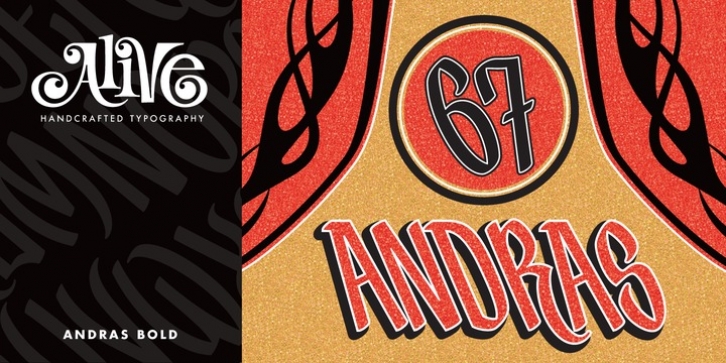
Inspired from fragments peeled from the helmet of retired stunt-man Andras Balaset, font designer Allen Mercer of Alive fonts has created an alphabet ready to give you the best performance in a variety of conditions.
Andras Bold has a more noticeable casual flare with uniquely angled strokes while Andras Slim is a more polished and rigid contender.
Whether hand painted on rockets, race cars or pleather jackets, Andras has been highly refined to maintain readability even while traveling at high speeds.